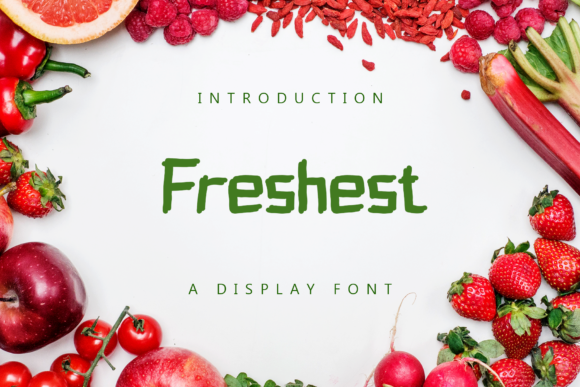
Unleash your creativity with Freshest Font, a striking display font crafted by giartstudios.
Express your thoughts in a captivating new light with Freshest Font, an extraordinary display font that exudes elegance and charm. Its unique design effortlessly adds a touch of sophistication to your designs, making it the perfect choice for wedding invitations, thank you cards, quotes, and logos.
Let your words shine in the spotlight with Freshest Font, the ultimate choice for bringing life to your creative projects. Its graceful curves and playful lines will make your designs stand out, leaving a lasting impression on your audience.
Dive into the world of endless possibilities with Freshest Font. Whether you're creating wedding invitations or designing logos, this font's versatility knows no bounds. Let your imagination soar as you explore a myriad of design options, knowing that Freshest Font will elevate your work to new heights.